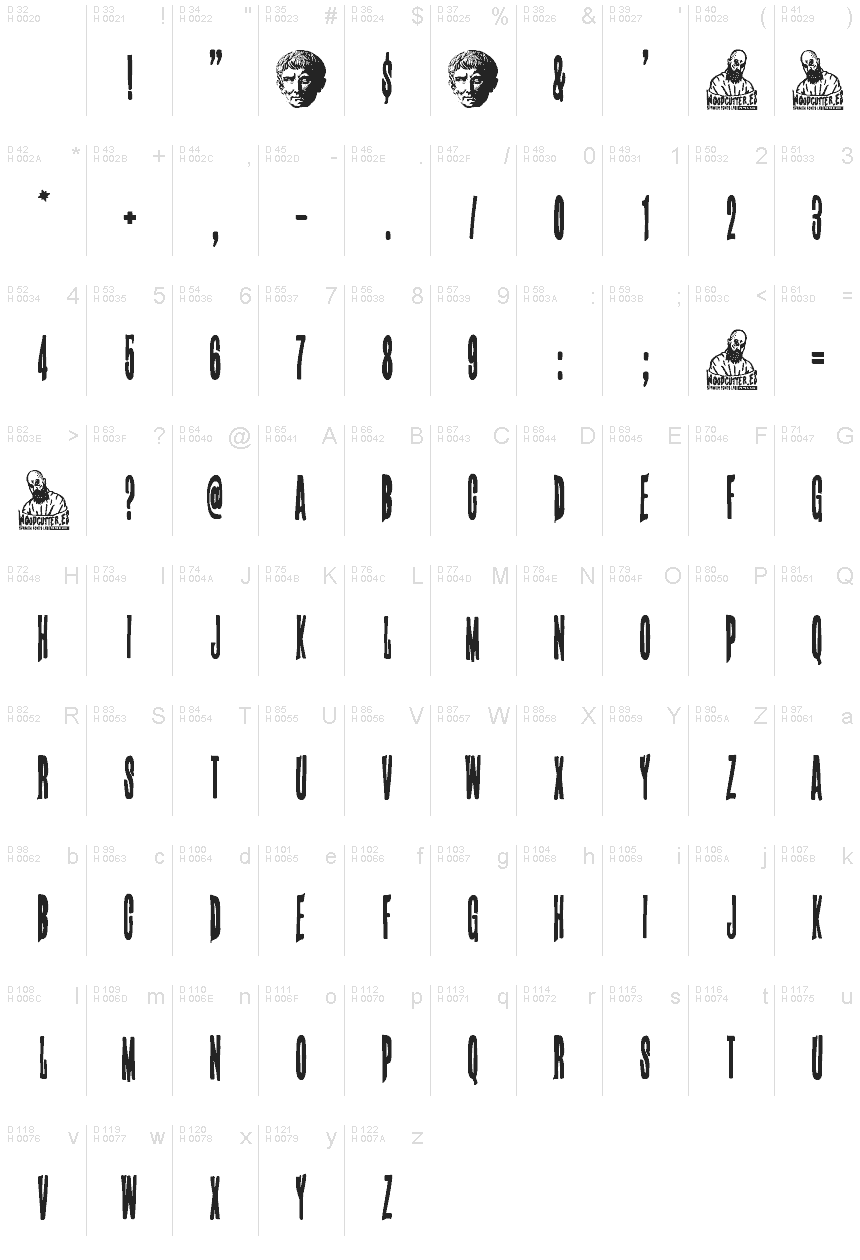
Caligula Corporation
Caligula Corporation font, by Woodcutter, is a display font with condensed characters and vintage-inspired shapes. It brings theatricality to projects with its rustic and nostalgic appearance suitable for striking headlines. The visual character of the font comes from these features combined into a single unit.
A free tense display typeface, Caligula Corporation can be used in movie titles or posters, theater designs, video games, branding ideas for entertainment entities, podcasts covers, event invitations or announcements; all of which take visuals seriously.